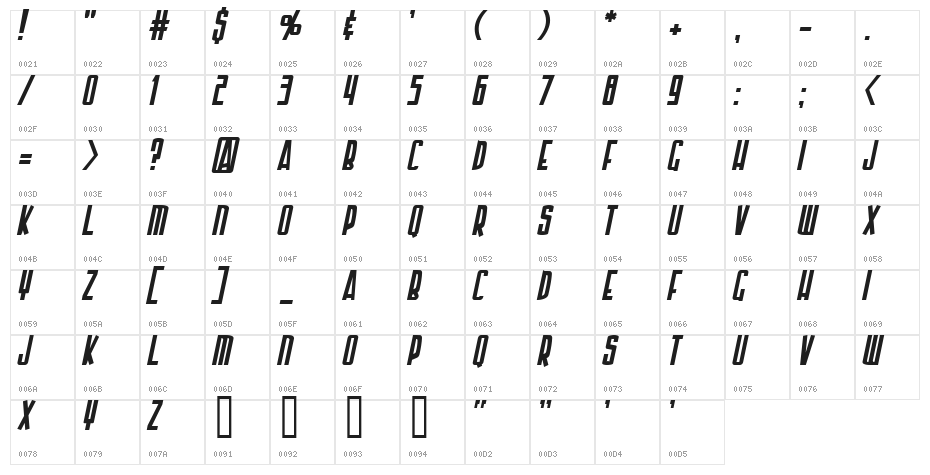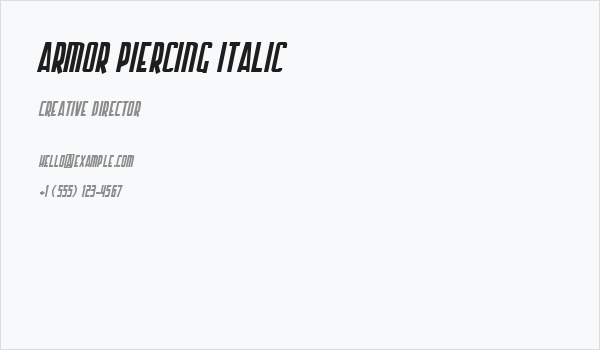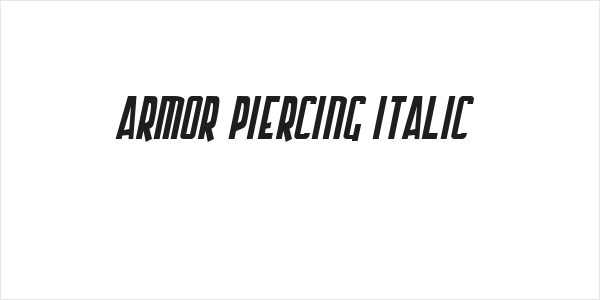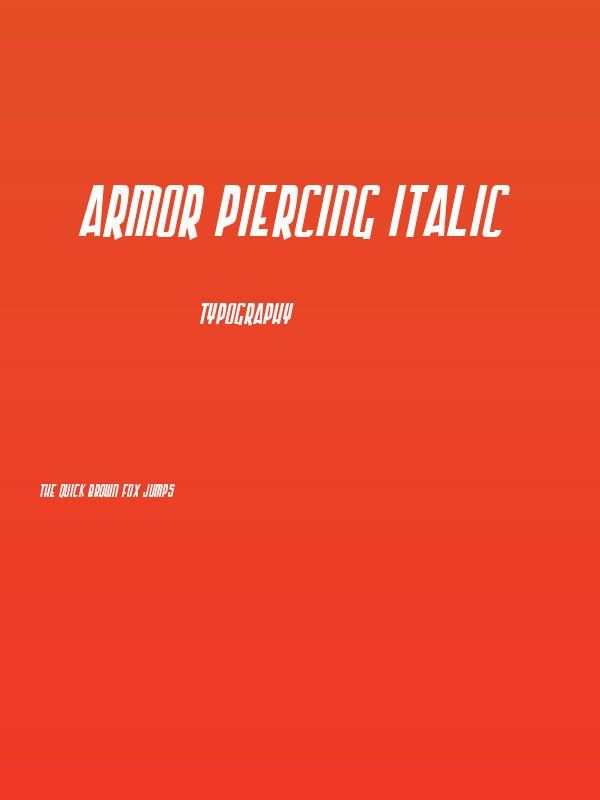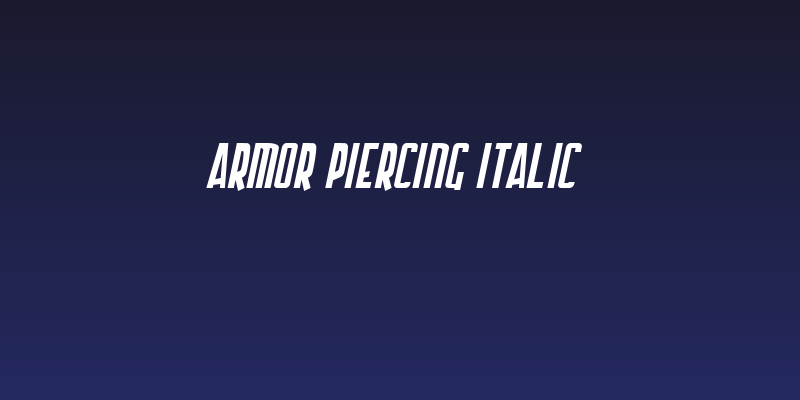
Armor Piercing Italic Font
Armor Piercing Italic Description
This font features a bold and dynamic style with a strong italic slant, giving it a sense of motion and urgency. The characters are sharply angled, with a condensed width that enhances their compact and impactful appearance. The uppercase and lowercase letters maintain a consistent design, emphasizing sharp edges and clean lines. The numerals and special characters follow the same stylistic cues, ensuring uniformity across all glyphs. The font's high contrast in stroke thickness adds to its striking visual appeal, making it ideal for attention-grabbing designs.
| Proposed Projects | Ideal for sports branding, action movie posters, and dynamic advertising campaigns. |